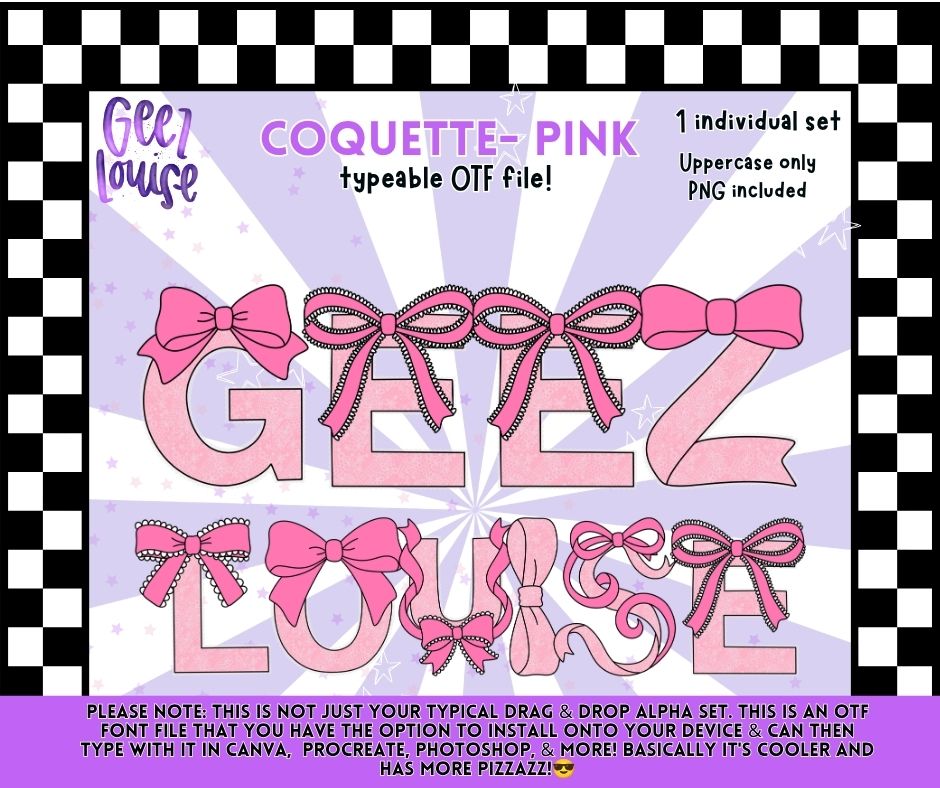
πŸŽ€πŸ’• Add the perfect coquette touch to your designs with Coquette Pink, a sweet and stylish bow-themed font designed for creators who love all things feminine, trendy, and adorable.
This font features decorative pink bows and ribbon details built directly into the letters, making it perfect for creating eye-catching graphics with minimal effort. Simply install the OTF font and type away, or use the included PNG alphabet pieces for drag-and-drop projects.
• Uppercase Letters
• Uppercase letters only.